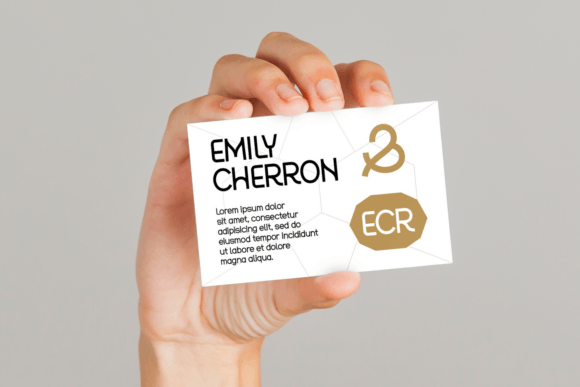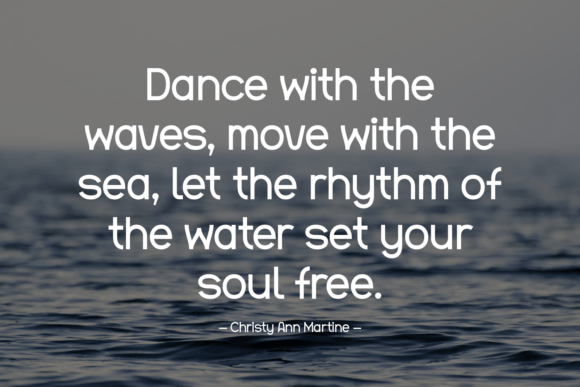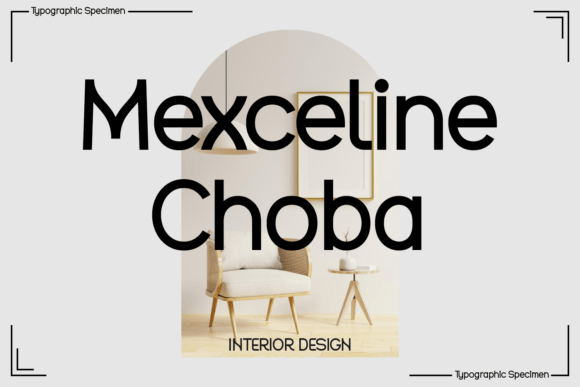
Gither Choba Font
Gither Choba is a sleek and modern sans-serif font designed for versatility and style. Its clean lines and balanced proportions make it perfect for branding, web design, and editorial layouts. With a contemporary feel and excellent readability, it adds sophistication to any creative project.